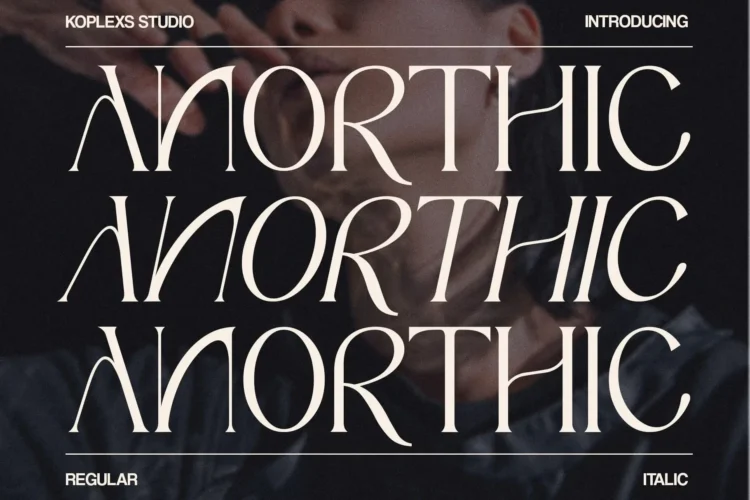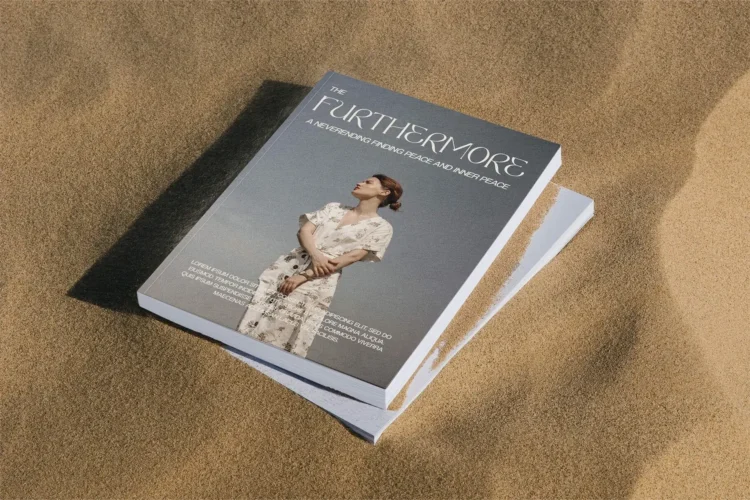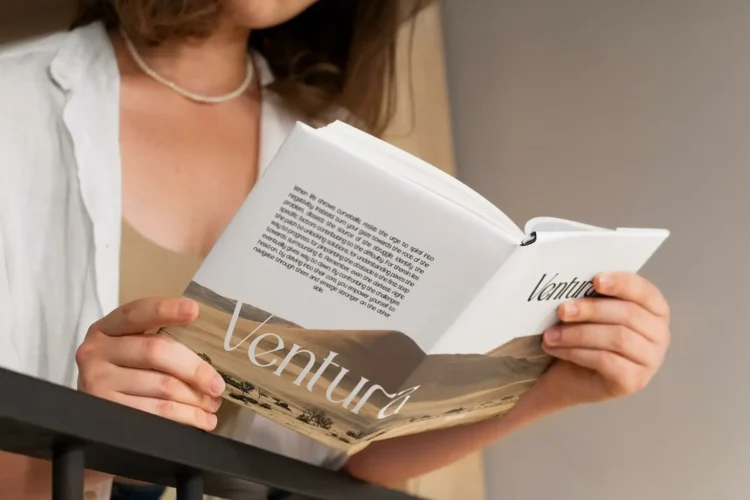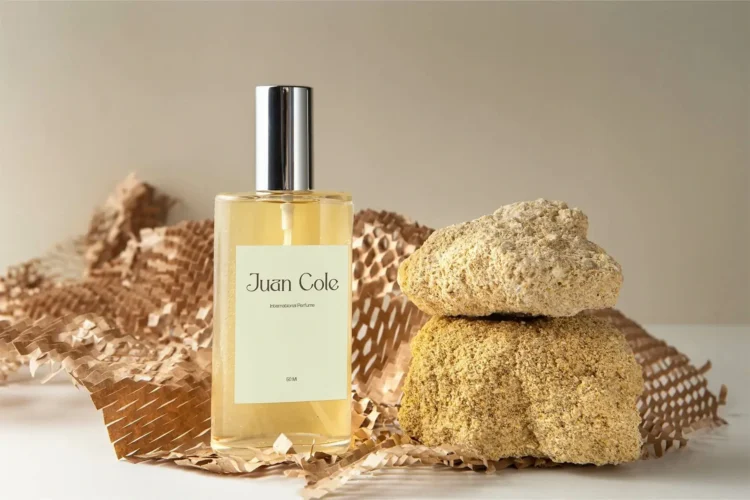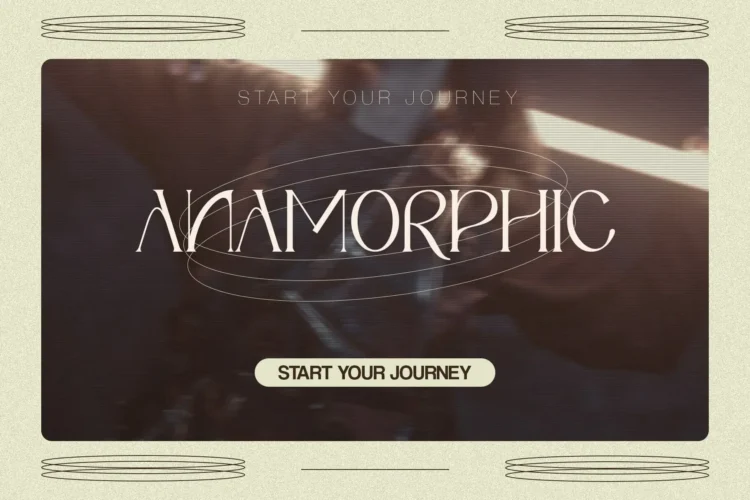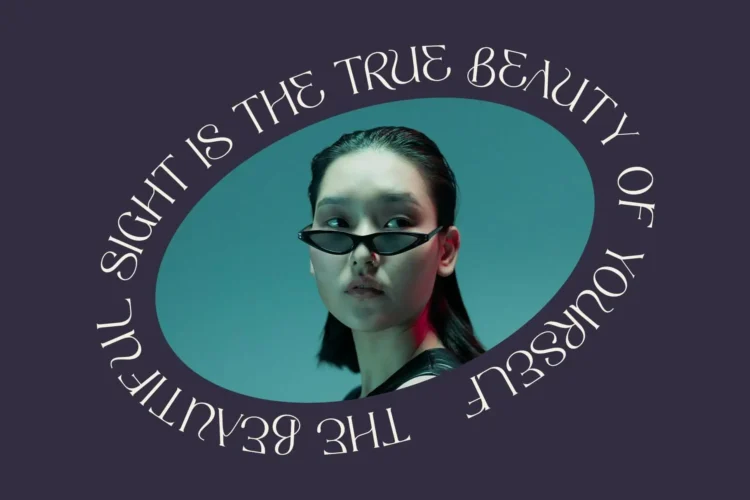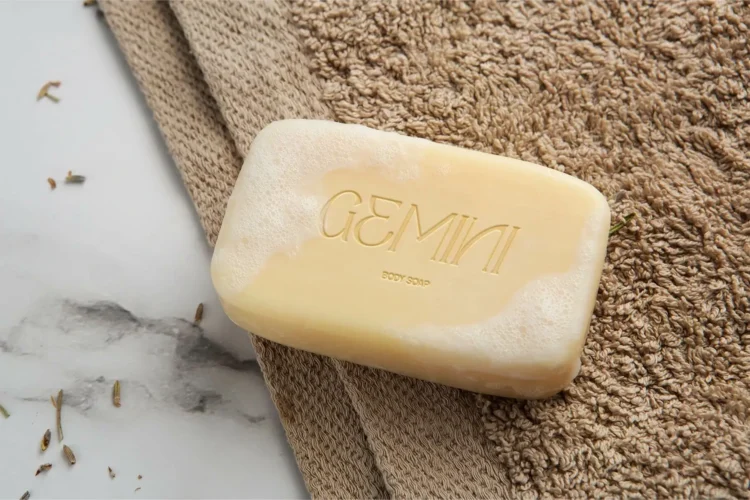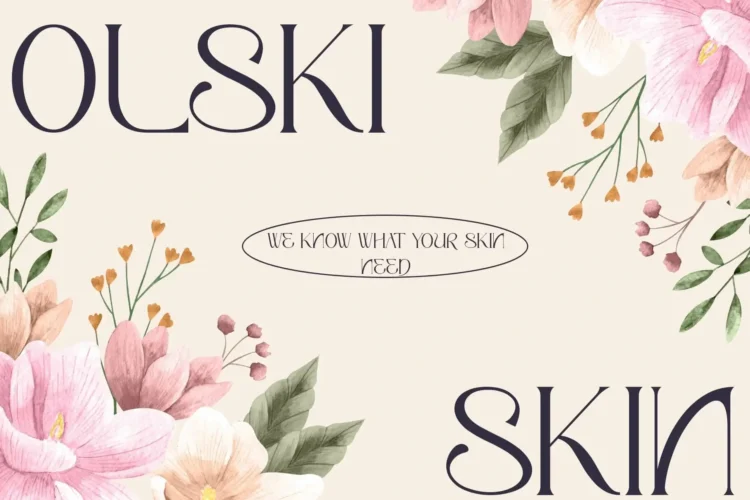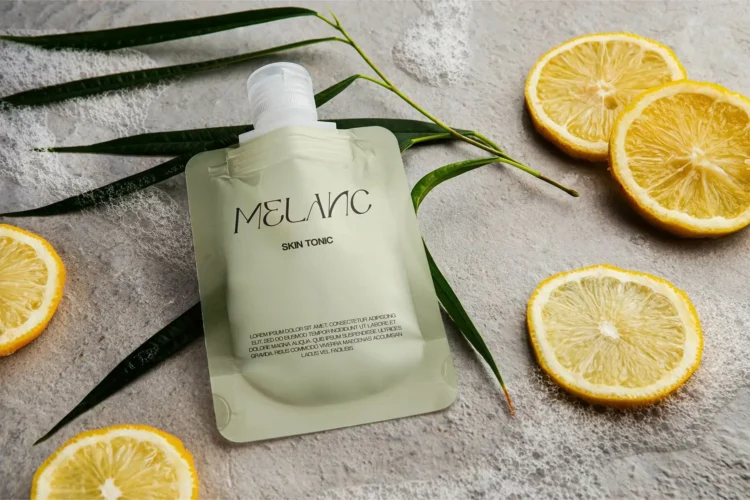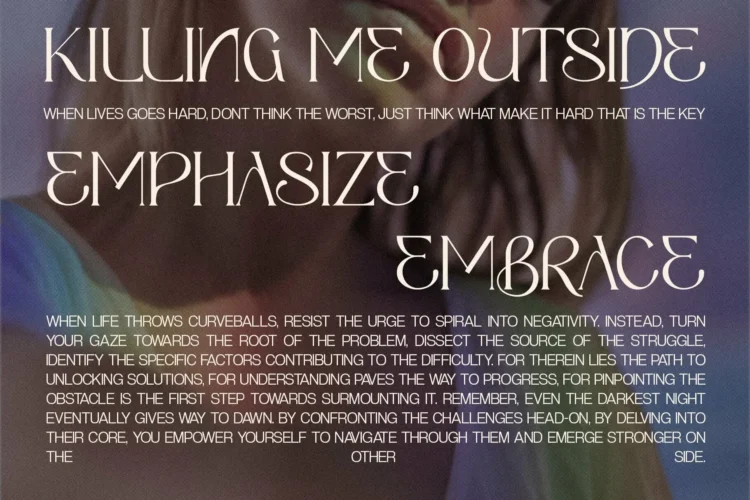
Anorthic Font – Elegant Serif Font for Branding, Luxury & Modern Designs
Anorthic Font is a serif font that blends modern sophistication with timeless elegance, making it the perfect choice for designers who want to create a refined and impactful visual identity. With its unique curves and stylish letterforms, Anorthic Font stands out among modern fonts and works seamlessly as a branding font, cosmetic font, and aesthetic font. Its versatility allows it to elevate everything from logo design to editorial layouts, packaging, and high-end marketing campaigns.
This elegant font embodies luxury and modernity, making it an excellent choice for brands looking to project exclusivity, beauty, and professionalism. Whether used as a headline font or heading font, it delivers striking readability while maintaining a chic aesthetic.
- Alternates
- Ligatures
Anorthic Font Perfect for :
Anorthic Font is versatile and works beautifully for :
- Logos & Brand Identity
- Cosmetic & Skincare Packaging
- Editorials, Magazines & Books
- Luxury Branding & Invitations
- Social Media & Digital Campaigns
- Website Headings & Blog Titles
Features of Anorthic Font:
- Stylish serif font with a modern luxury feel
- Ideal for branding projects, logo design, and editorial work
- Perfect as a cosmetic font for beauty, skincare, and fashion industries
- Elegant letterforms that suit aesthetic font styles for lifestyle branding
- Works beautifully as a headline font or heading font for magazines, blogs, and advertisements
- A versatile choice for luxury font needs in packaging, social media, and marketing
Bring elegance and sophistication to your designs with Anorthic Font – the ultimate typeface for timeless luxury and modern branding.